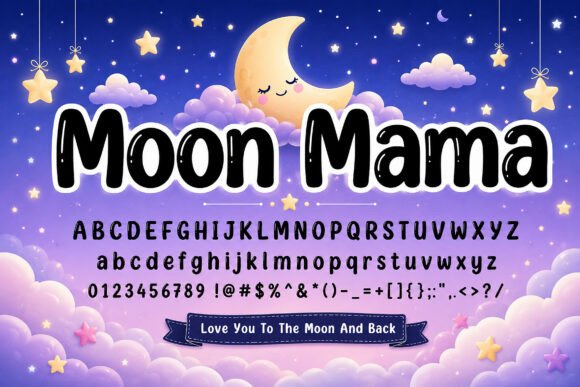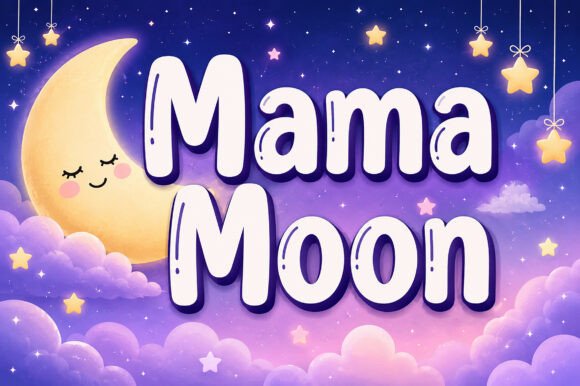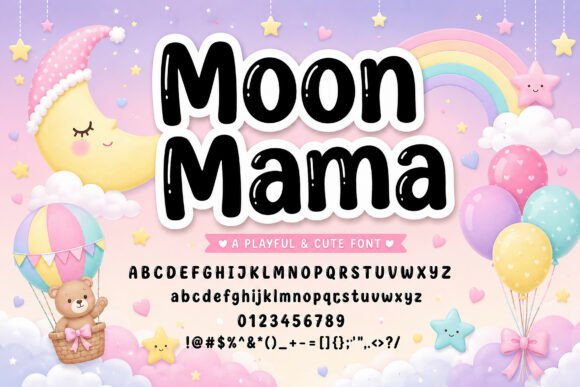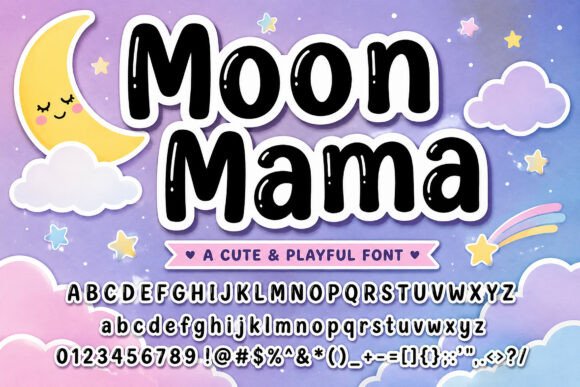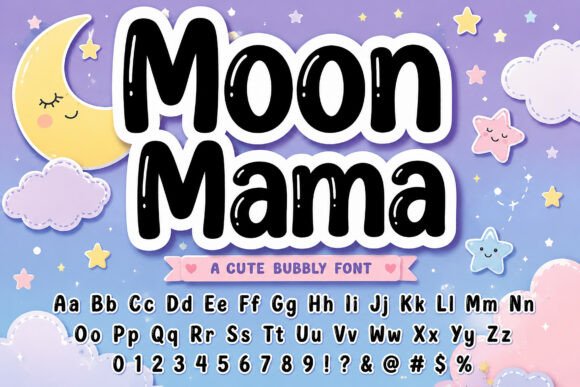
Introduction to Moon Mama Font
Introducing, Moon Mama – a delightfully whimsical display font characterized by its vivid and vivacious handwritten style that effortlessly lights up any design project.
Moon Mama presents itself as an inviting and lively font, ideal for children-oriented designs, dynamic branding, exciting packaging, captivating social media posts, and lighthearted typography projects This font provides an enchanting solution for children’s merchandise, spirited branding, compelling posters, enticing package designs, vivid social media graphics, alluring invitation cards, cute stickers, and modern, innovative display typography.
Key Features of Moon Mama Font